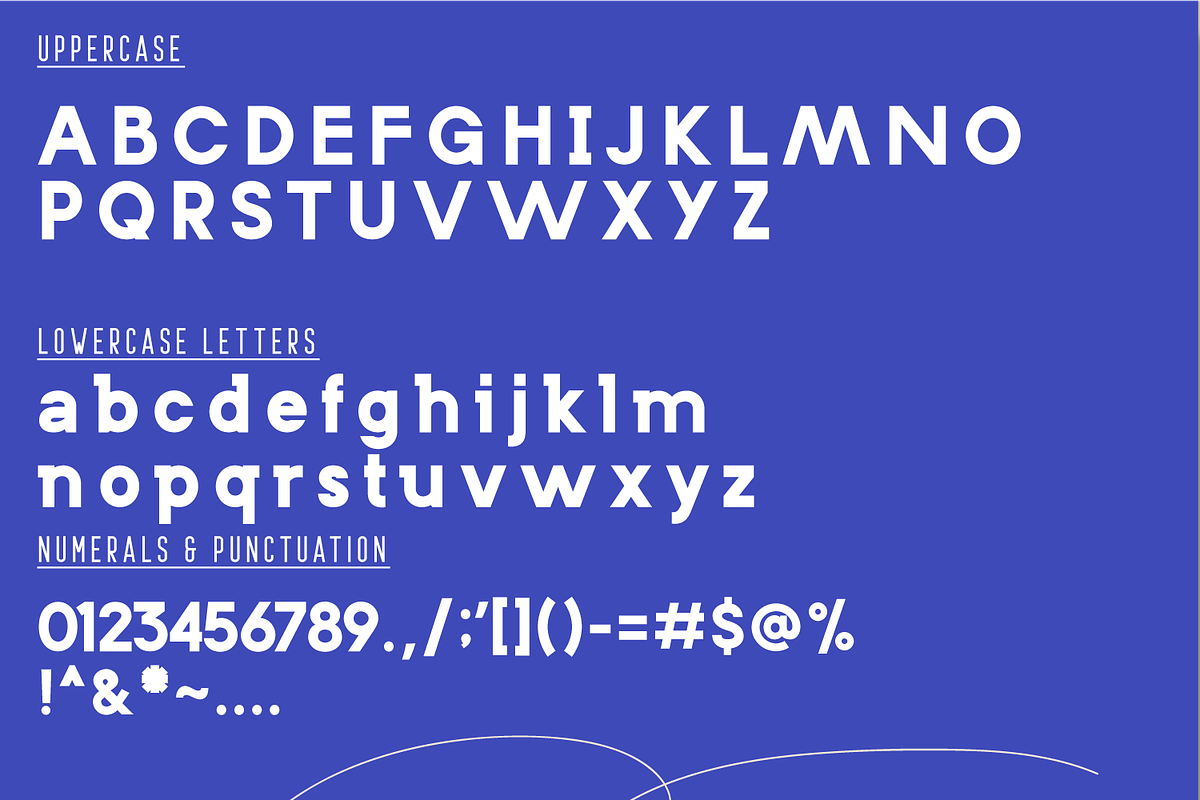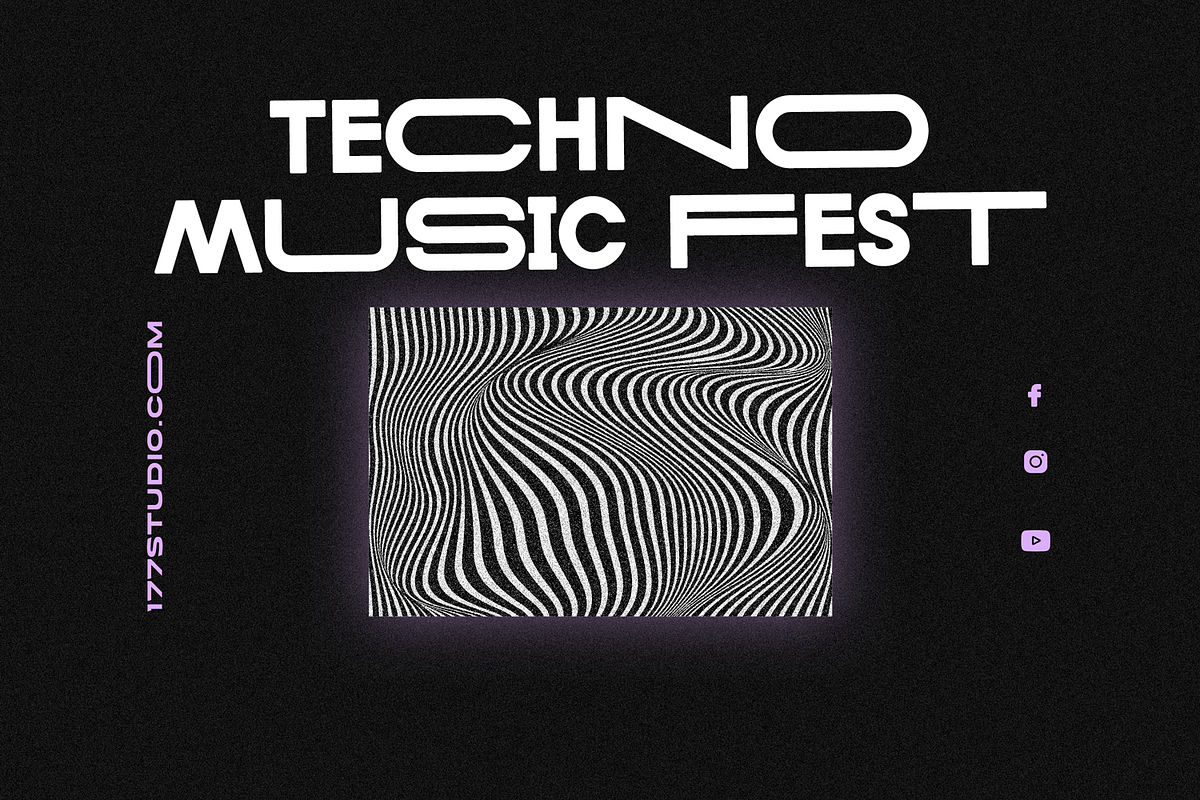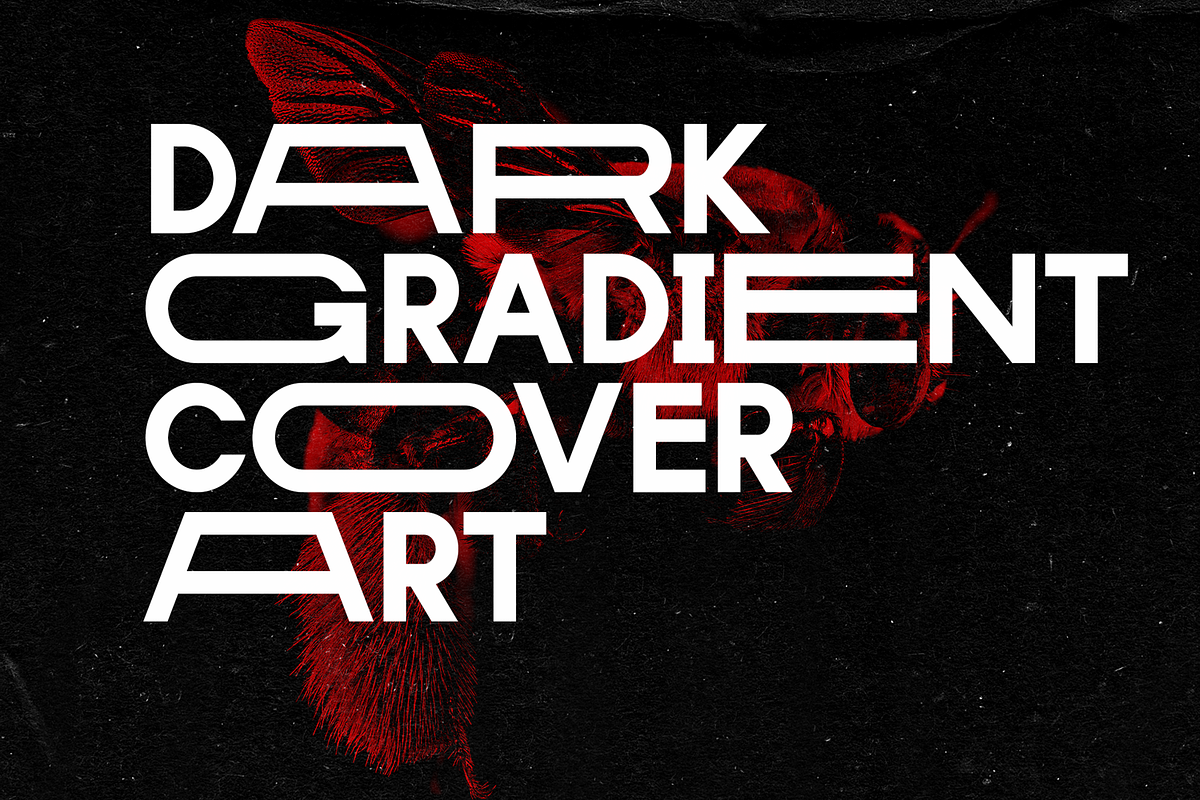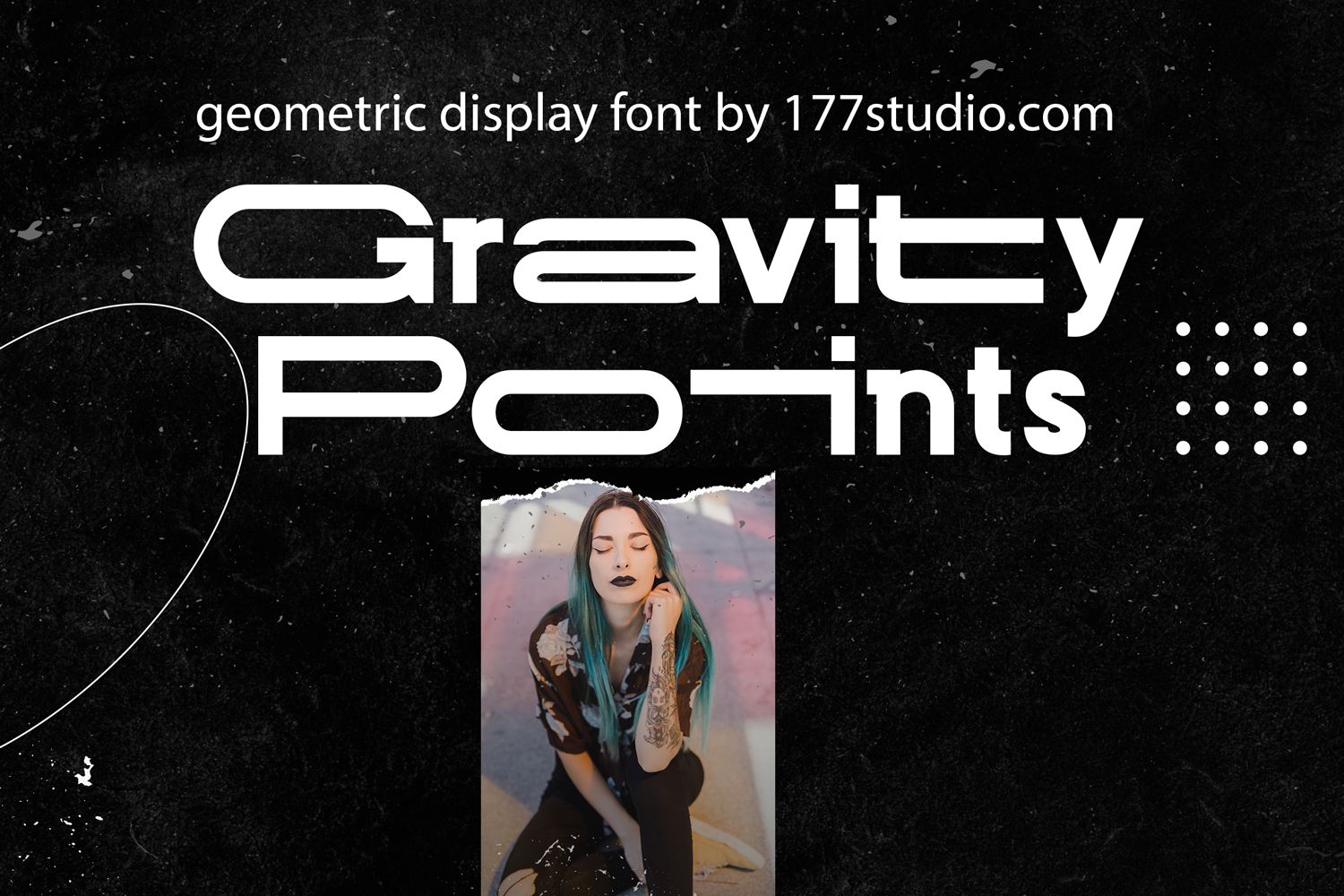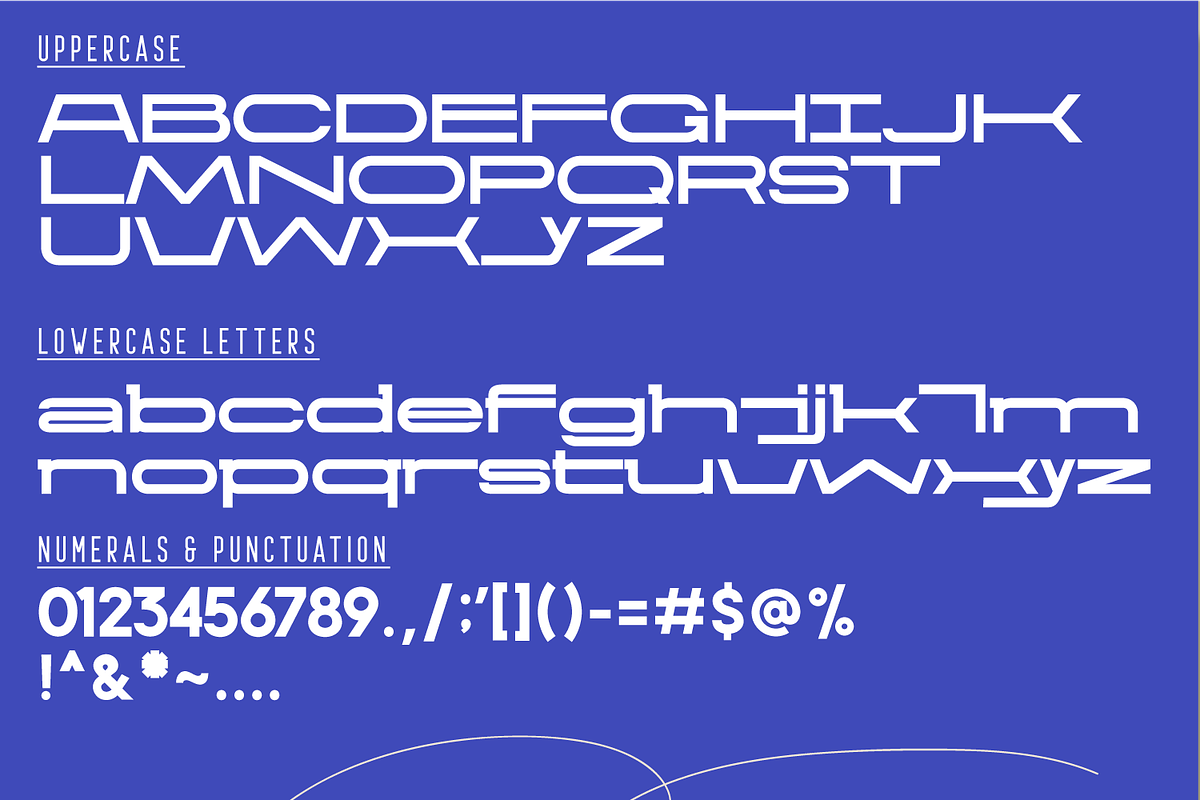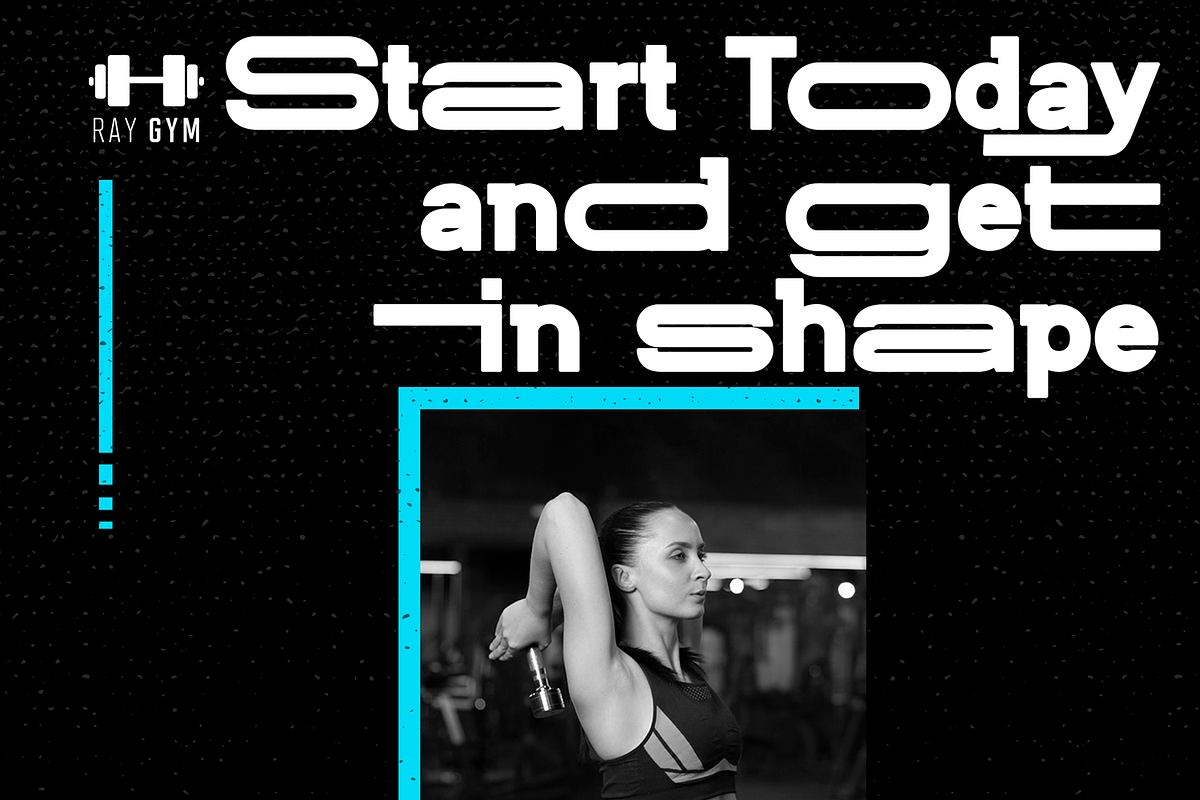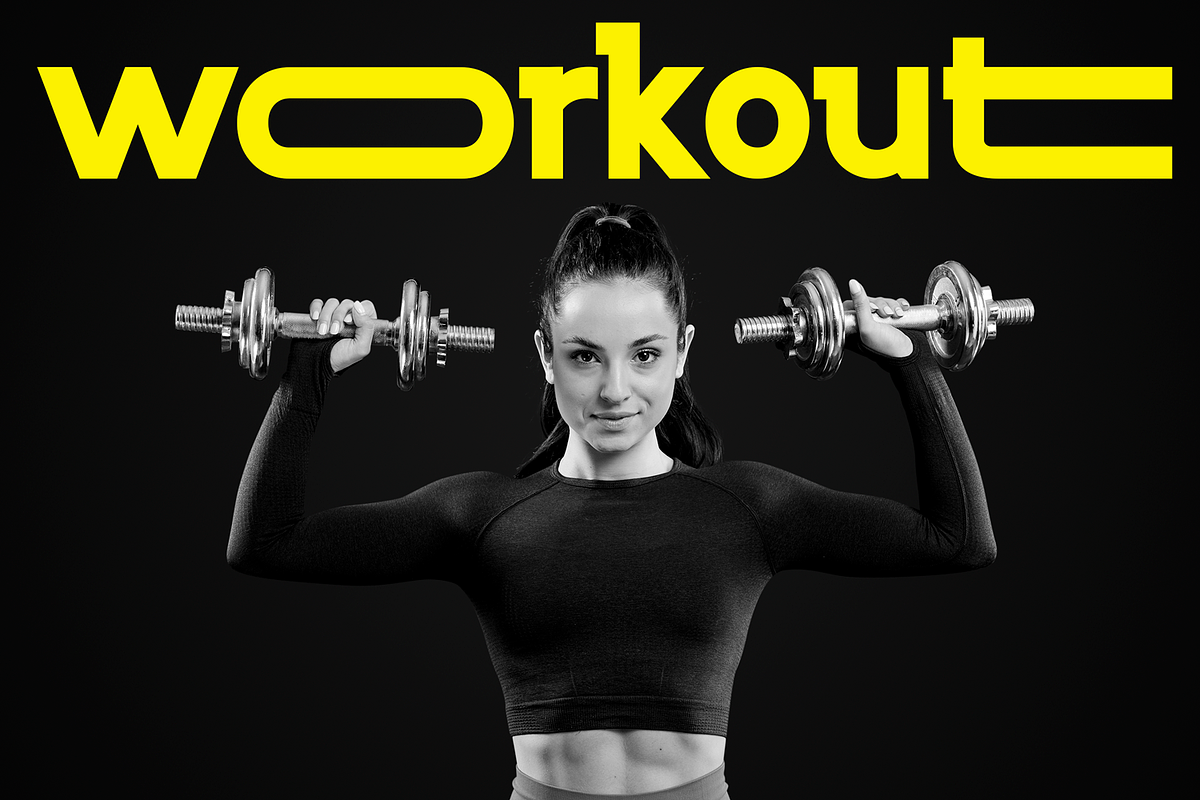
Gravity Points Font
Gravity Points Font is inspired by city life and sport. It has been designed as a variable font and should be used in as a variable font to get the full enjoyment of using this typeface. Perfect choice for standout headlines, displays, packaging, flyers, logos, and works well in both print and digital environments like sophisticated web design or kinetic typography.